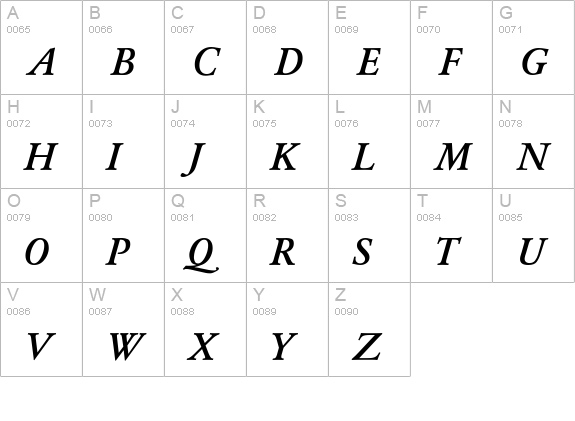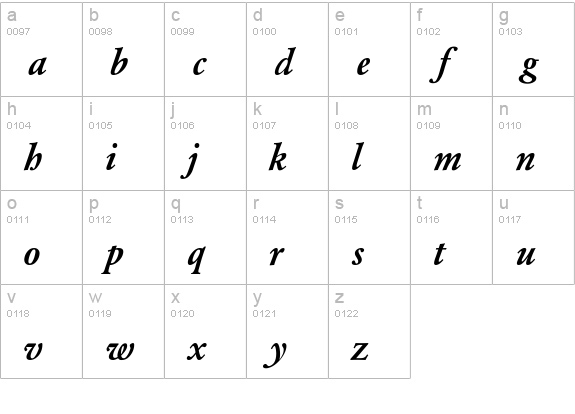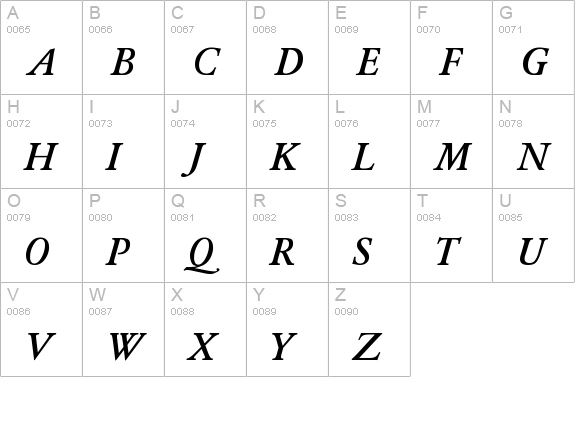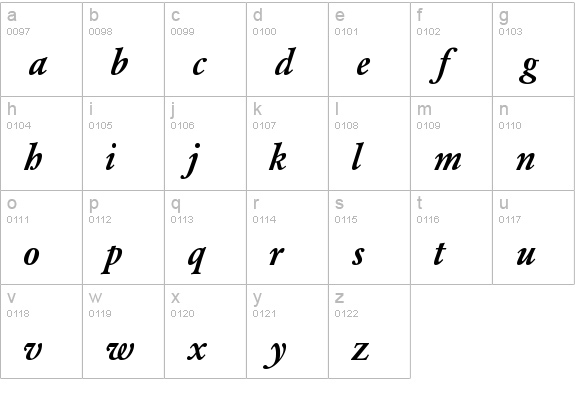
YearlindMediu 2 font is a stunning display font that exudes elegance and sophistication. With its unique blend of classic and modern elements, this font is perfect for a wide range of design projects. Its intricate details and graceful curves make it a standout choice for headlines, invitations, logos, and more. What sets YearlindMediu 2 font apart is that it is available for free download at FontsMarket.com. This means you can easily access this beautiful font without any cost, making it a valuable addition to your font library. Whether you are a professional designer or a hobbyist looking to add a touch of style to your projects, YearlindMediu 2 font is the perfect choice. Download it today and elevate your designs with this exquisite typeface.